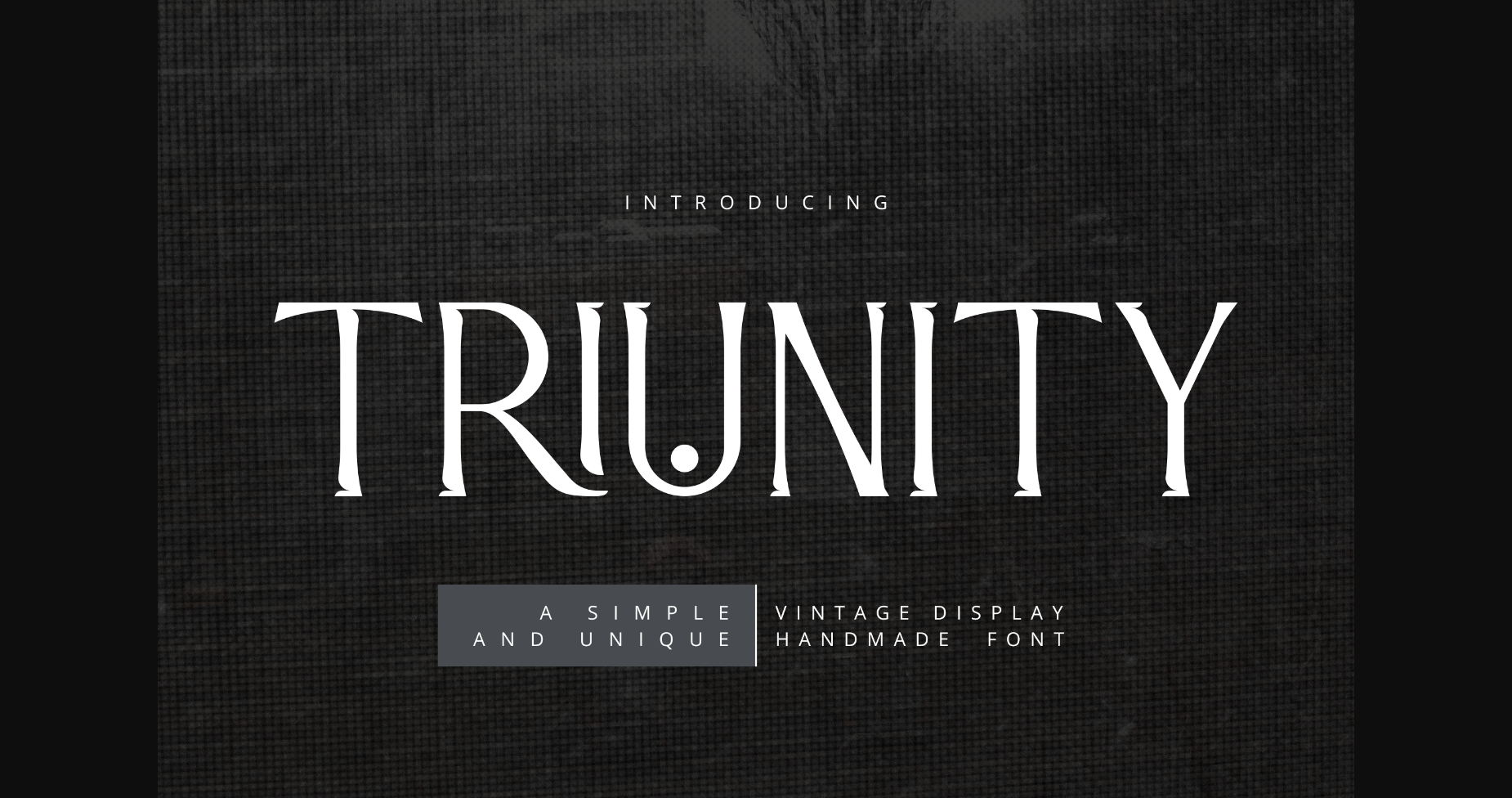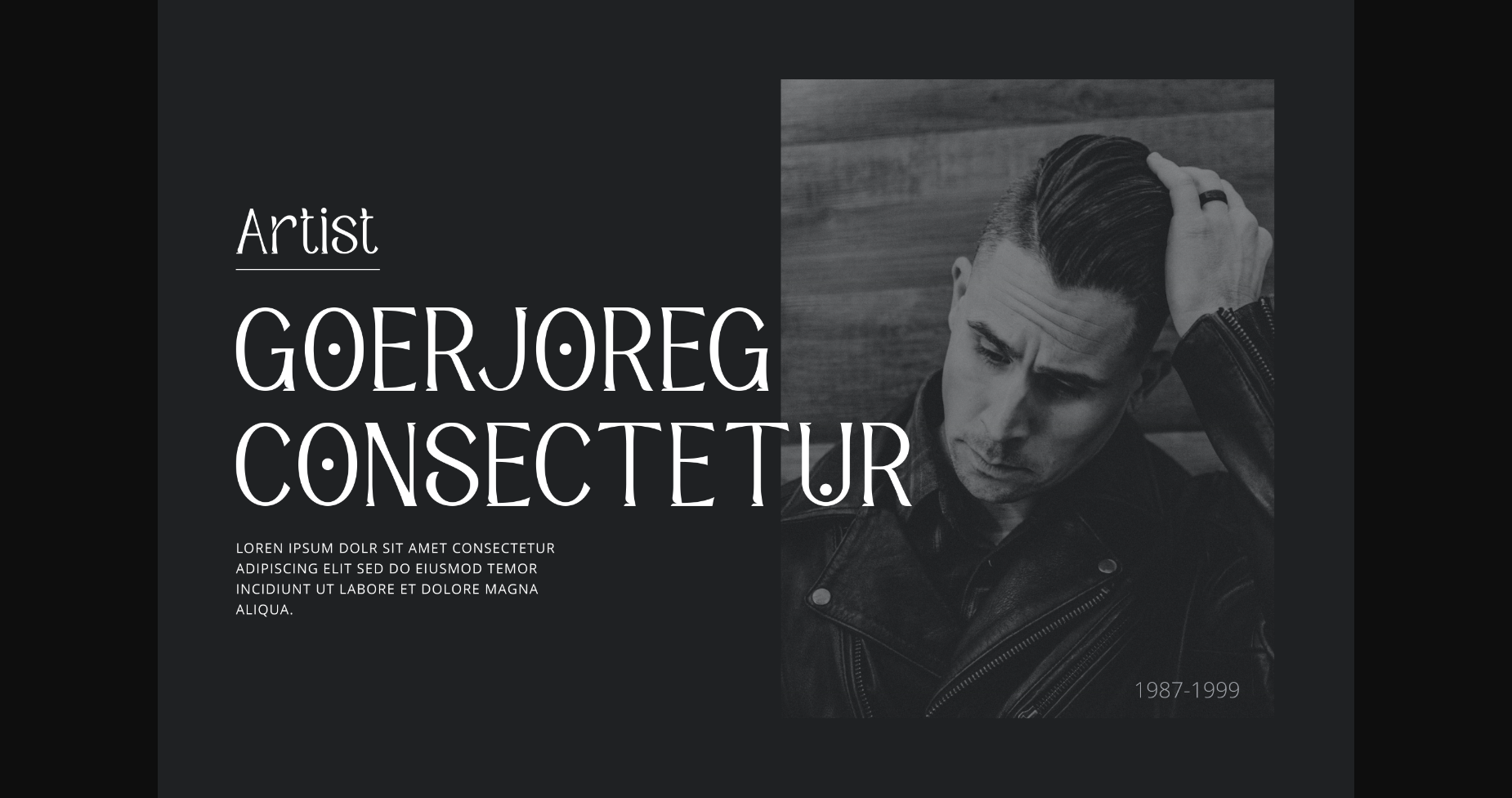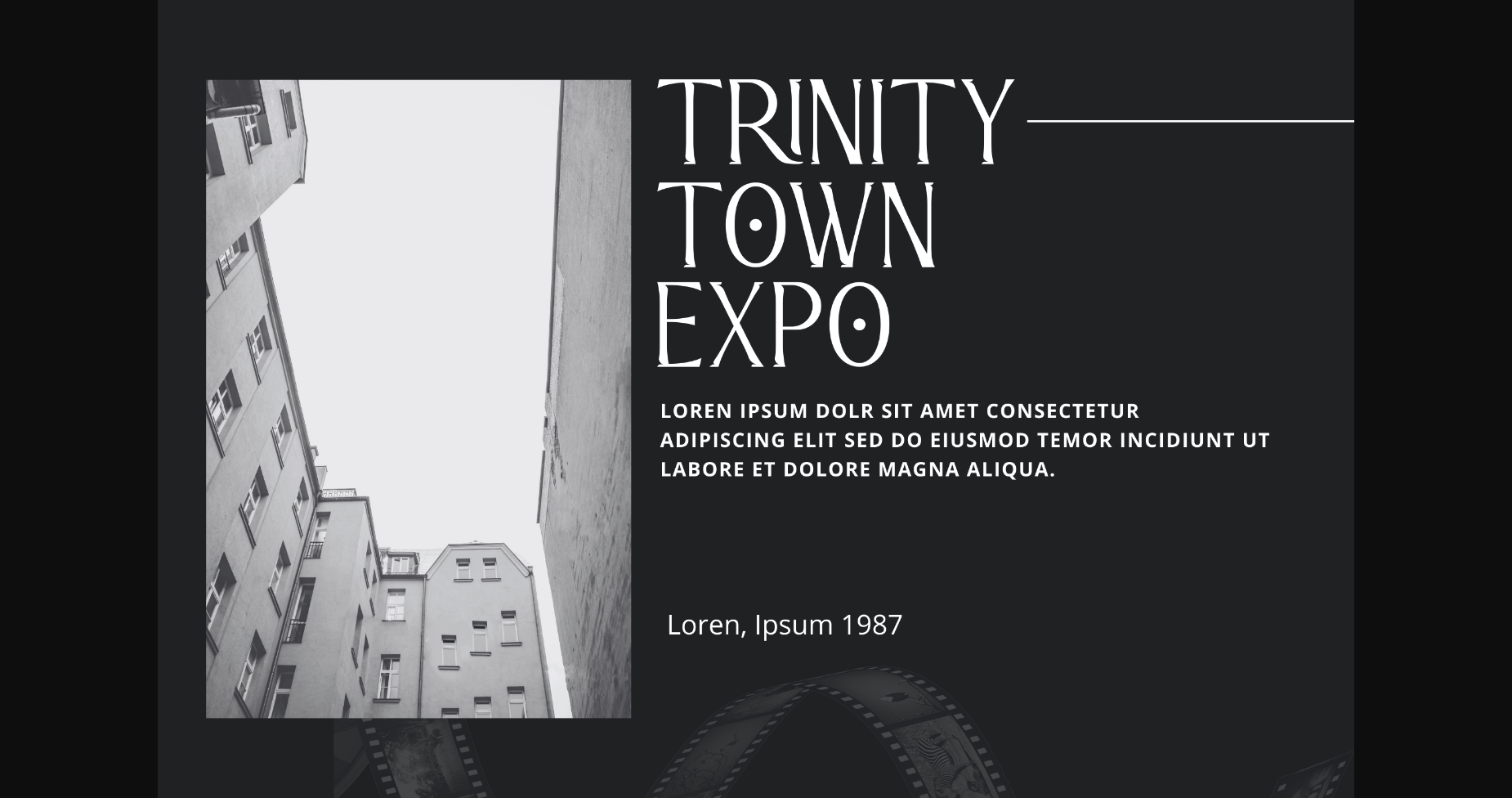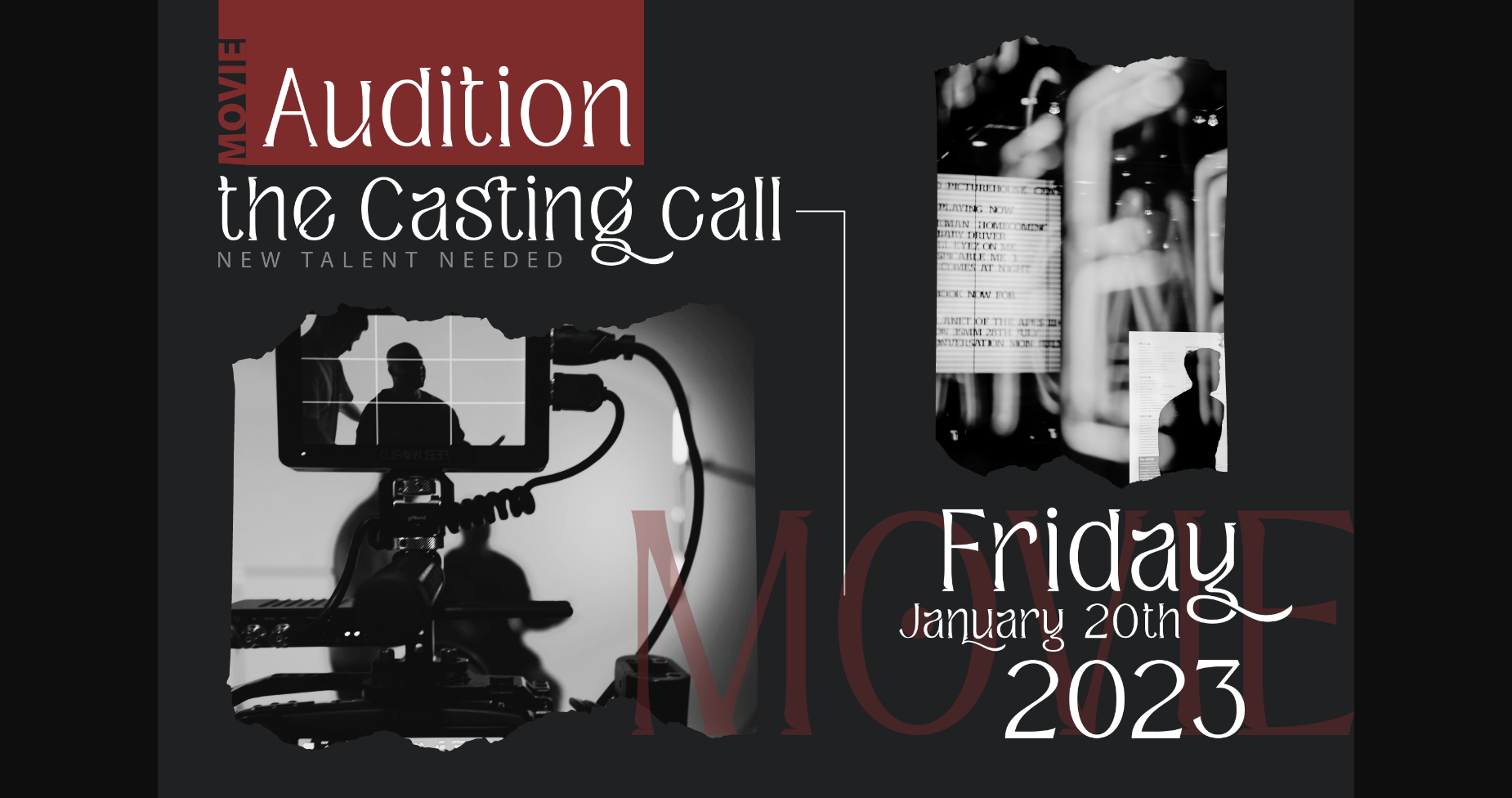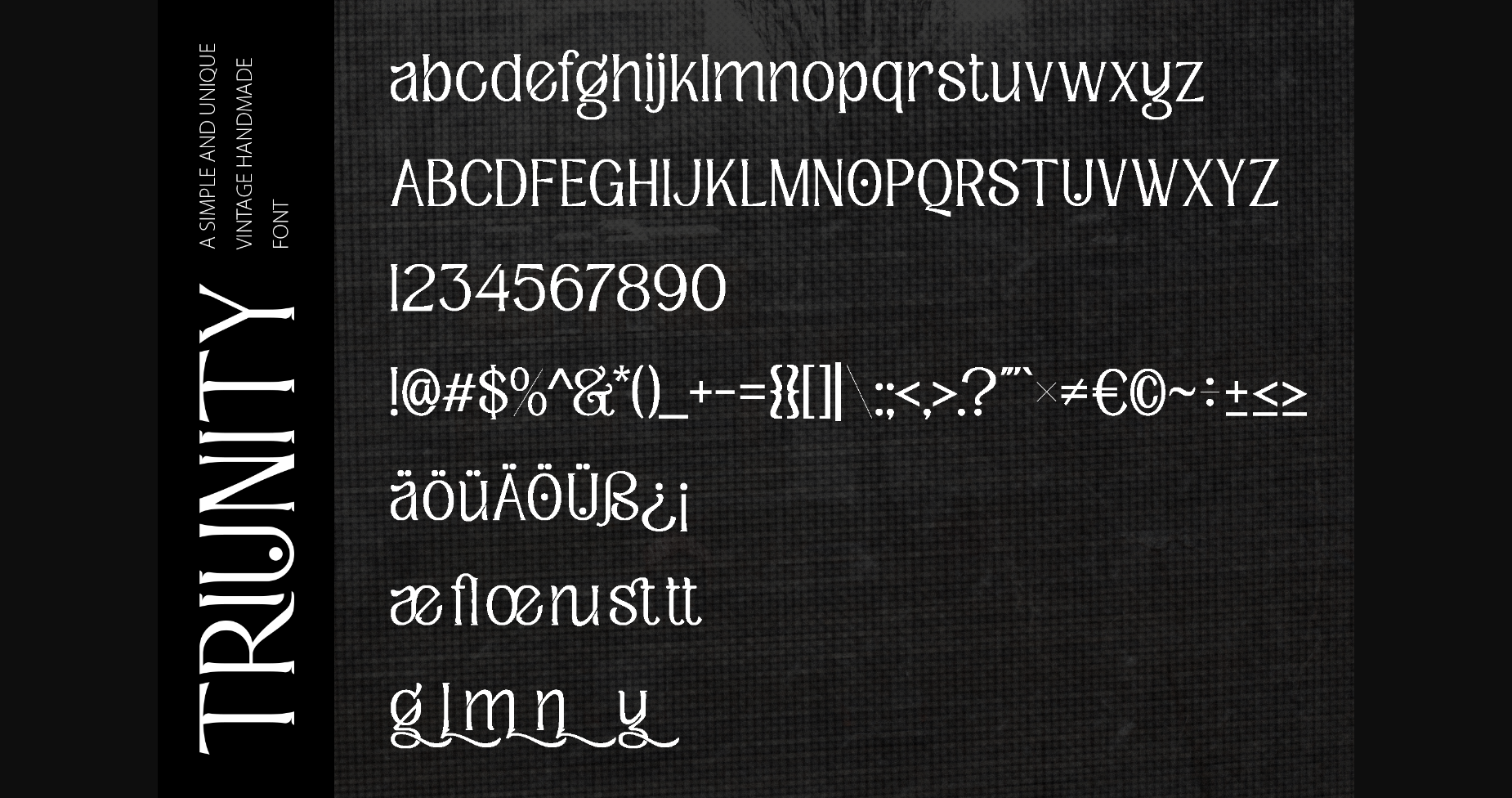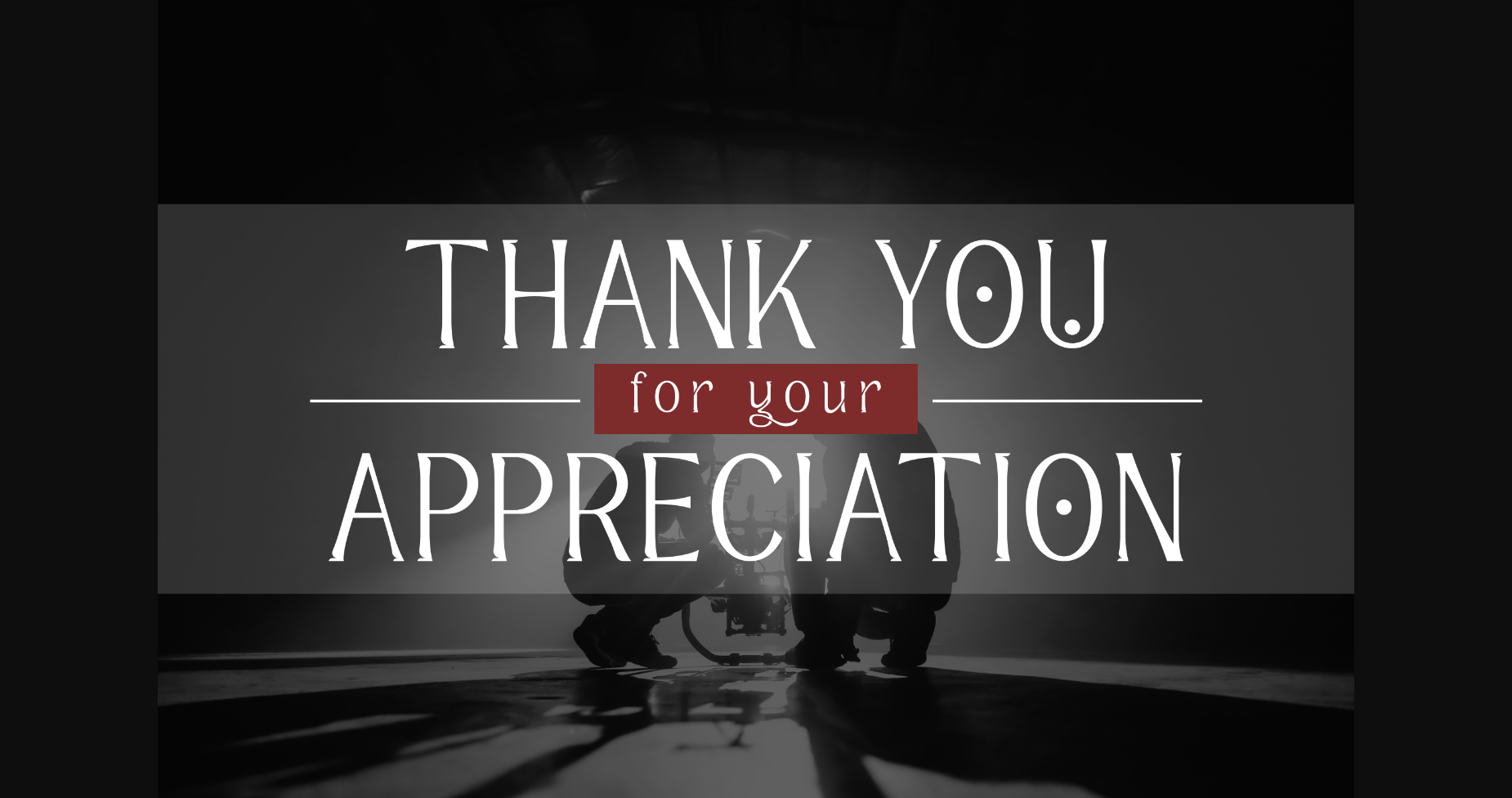
HomeSans Serif FontsTriunity Font Sans Serif Fonts Triunity Font FacebookXPinterestWhatsApp 1 of 8 ... Triunity Font Poster 2... Triunity Font Poster 3... Triunity Font Poster 4... Triunity Font Poster 5... Triunity Font Poster 6... Triunity Font Poster 7... Triunity Font Poster 8... About Triunity Font Triunity is a modern sans-serif font that is authentic and suitable for many of your visual needs, like invitations, movies, greeting cards, branding materials, business cards, quotes, posters, and more! DOWNLOAD NOW People also explored Egyptian Monograms Chaprile Font Devinland Lovecocky Font Dynomite Love Butterfly Monogram Font Krakatau Font Mantis Typeface Font Nightfall Font Sunnice Font 413 0 TagsTriunity Font Previous articleRectila FontNext articleMorena Font LEAVE A REPLY Cancel reply Comment: Please enter your comment! Name:* Please enter your name here Email:* You have entered an incorrect email address! Please enter your email address here Website: Save my name, email, and website in this browser for the next time I comment. Personal Use Free Histeria Bites Personal Use Free Read more about this font Beautiful Personal Use Free Read more about this font City Tour Personal Use Free Read more about this font Dolce Vita Personal Use Free Read more about this font BLOG Fonts That Capture the Spirit of New York City New York City is more than just a place—it’s an experience, a rhythm, a visual language... To increase your work productivity, choose the most readable fonts. Where to Buy American Fonts Online in 2024 Elegant Wedding Invitation Fonts – Handwritten & Script Fonts